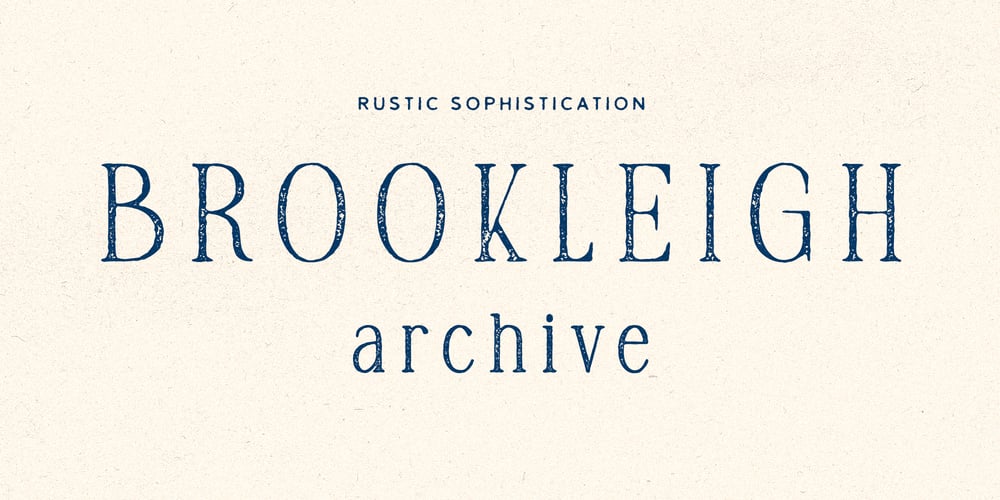
TC Brookleigh Archive Font Family was designed by Tom Chalky and published by Tom Chalky. TC Brookleigh Archive contains 8 styles and family package options. Brookleigh Archive – where rustic charm meets refined sophistication. This versatile font family is perfect for projects seeking a touch of authenticity and elegance, whether it’s for wedding invitations, logos, branding, packaging, and more.Brookleigh Archive builds upon the original Brookleigh Font (available in-store), adding a fresh twist and unlocking new creative possibilities.What’s Inside:– TC Brookleigh Archive Print: Non-textured fonts with a subtly rough edge. This set offers a clean, printed look. Available in regular, bold, extended regular, and extended bold styles.– TC Brookleigh Archive Rough (my personal favorite): These textured beauties bring a wonderfully aged, printed effect that exudes character and charm. Also available in four styles: regular, bold, extended, and extended bold.